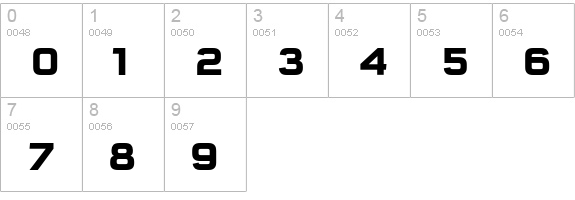
QTypeSquare-Bold is a strong, high-contrast variant in the QTypeSquare typeface family \xE2\x80\x94 well suited to headlines, attention-grabbing titles, and strong calls-to-action.
QTypeSquare-Bold is a striking and modern font that exudes confidence and strength. With its bold and sharp letterforms, it commands attention and makes a bold statement. This font is perfect for creating eye-catching headlines, posters, and logos that demand to be noticed. Featuring a unique square-shaped design, QTypeSquare-Bold adds a touch of geometric elegance to any project. The clean and precise lines give it a contemporary edge, making it a versatile choice for both digital and print designs. Whether you're designing a website or a magazine layout, this font will add a touch of sophistication and professionalism to your work. One of the best things about QTypeSquare-Bold is that it is freely available to download at FontsMarket.com. This means that you can start using this fantastic font right away without having to spend a dime. With its high-quality design and extensive character set, QTypeSquare-Bold is a valuable addition to any designer's toolkit. In addition to its aesthetic appeal, QTypeSquare-Bold also offers excellent legibility, even at smaller sizes. This makes it suitable for a wide range of applications, from body text in brochures to captions in videos. Its bold weight ensures that your text will stand out and be easily readable, no matter the context. Whether you're a professional graphic designer or a hobbyist, QTypeSquare-Bold is a font that will elevate your designs to the next level. Its contemporary style and versatility make it a must-have for any designer looking to make a statement. So why wait? Download QTypeSquare-Bold for free at FontsMarket.com and unleash your creativity today.